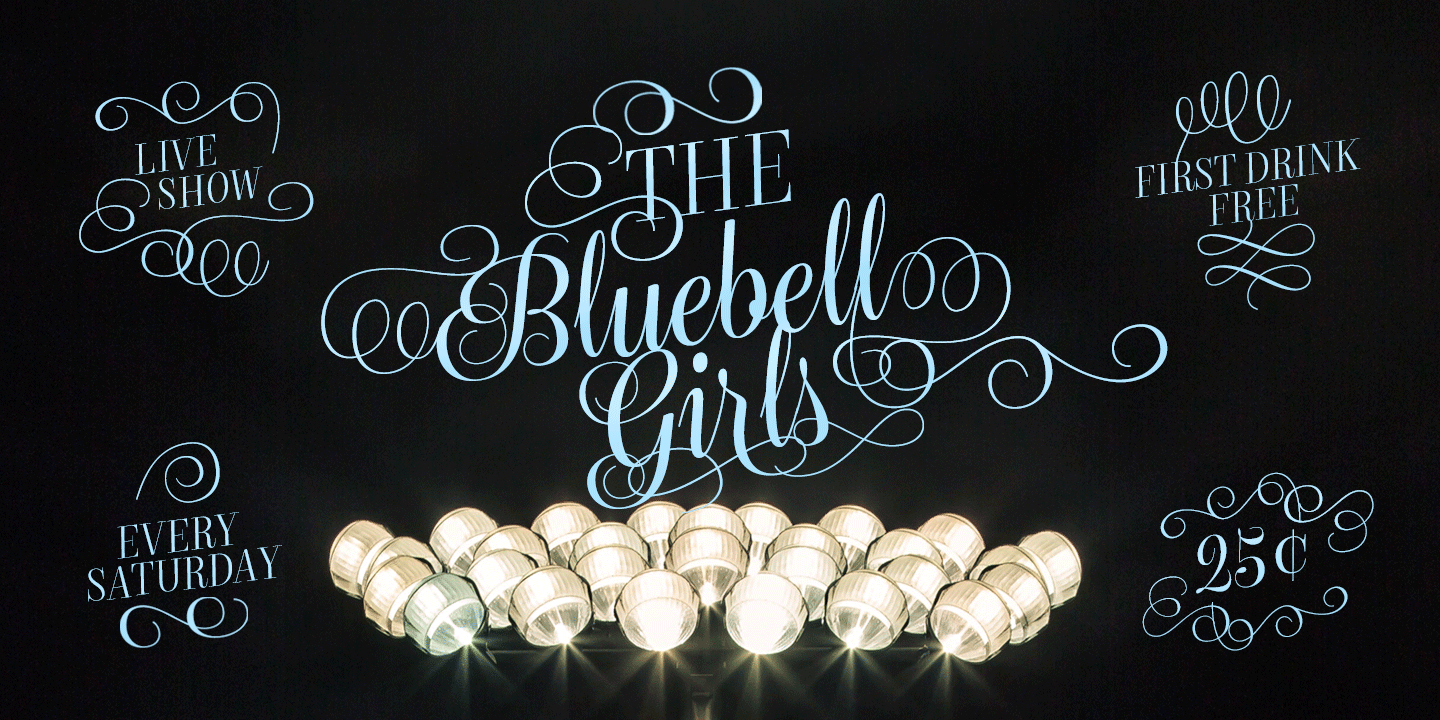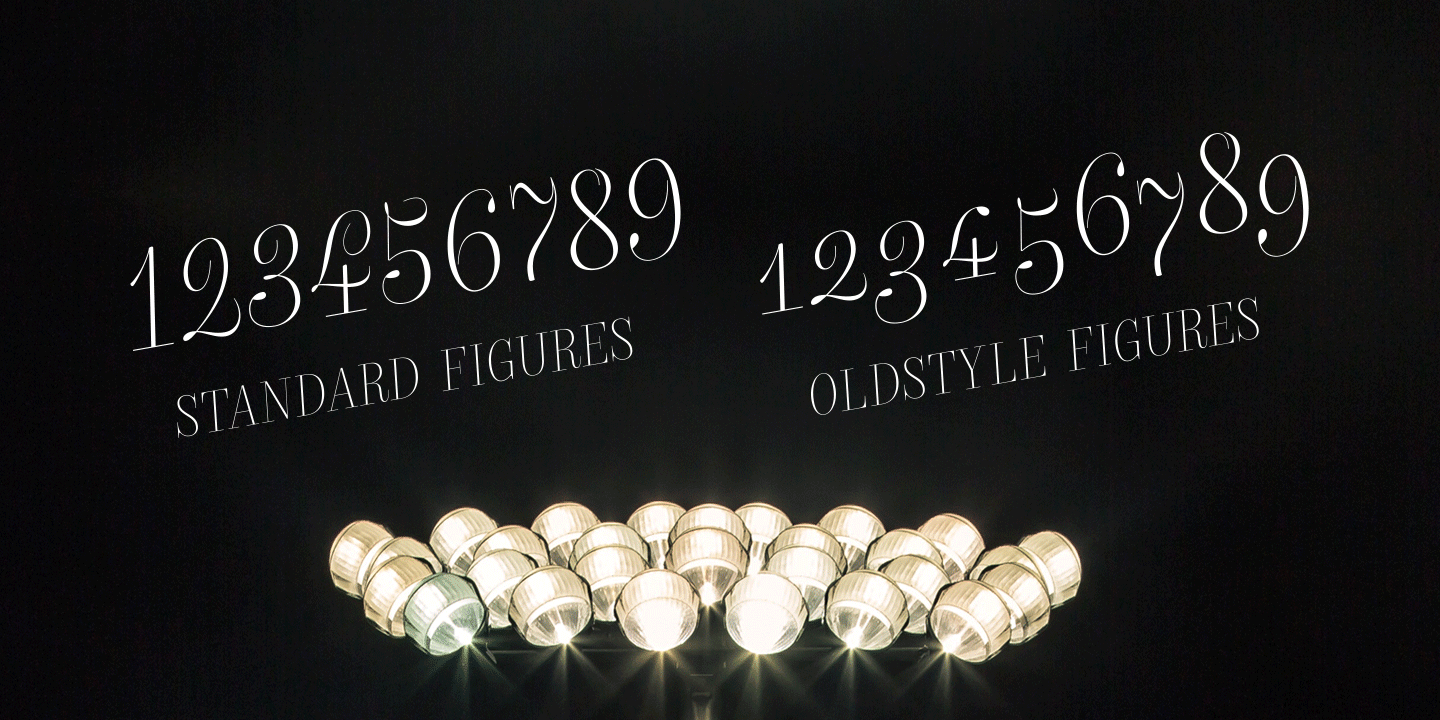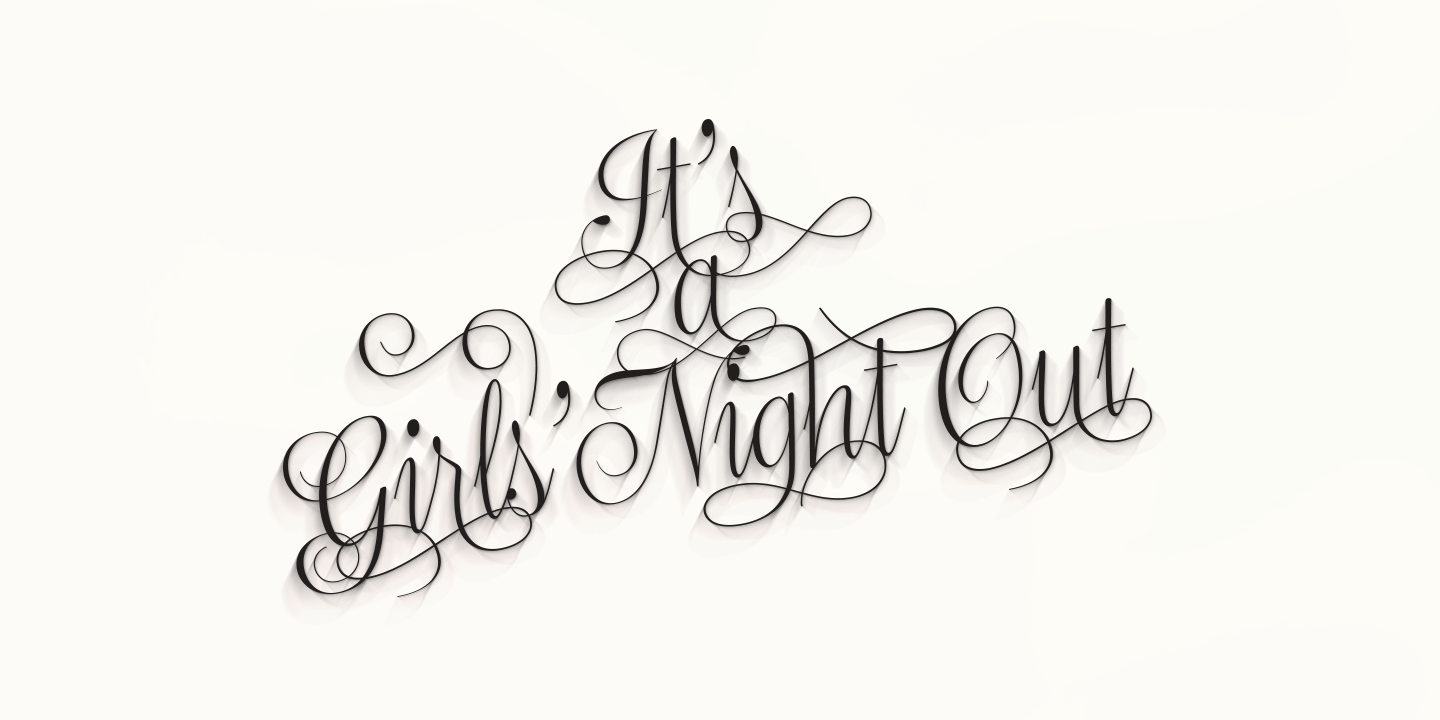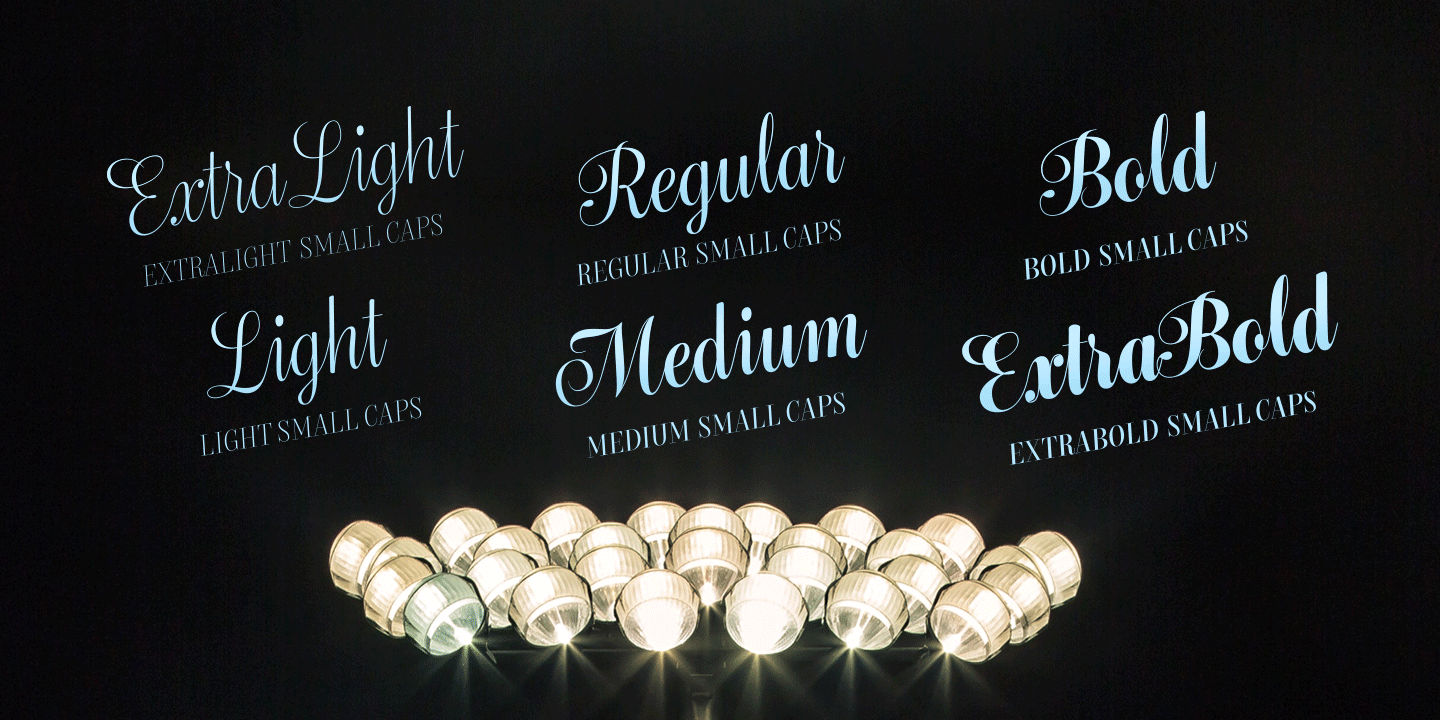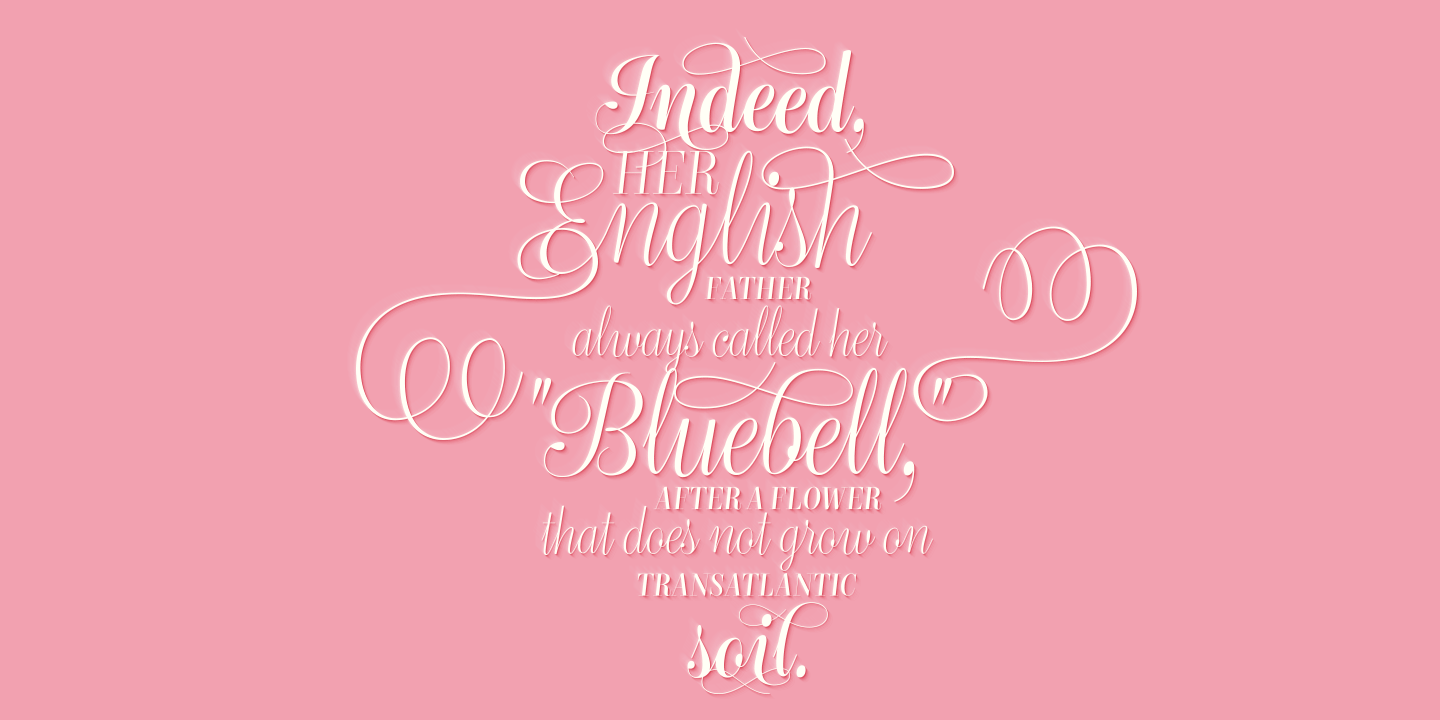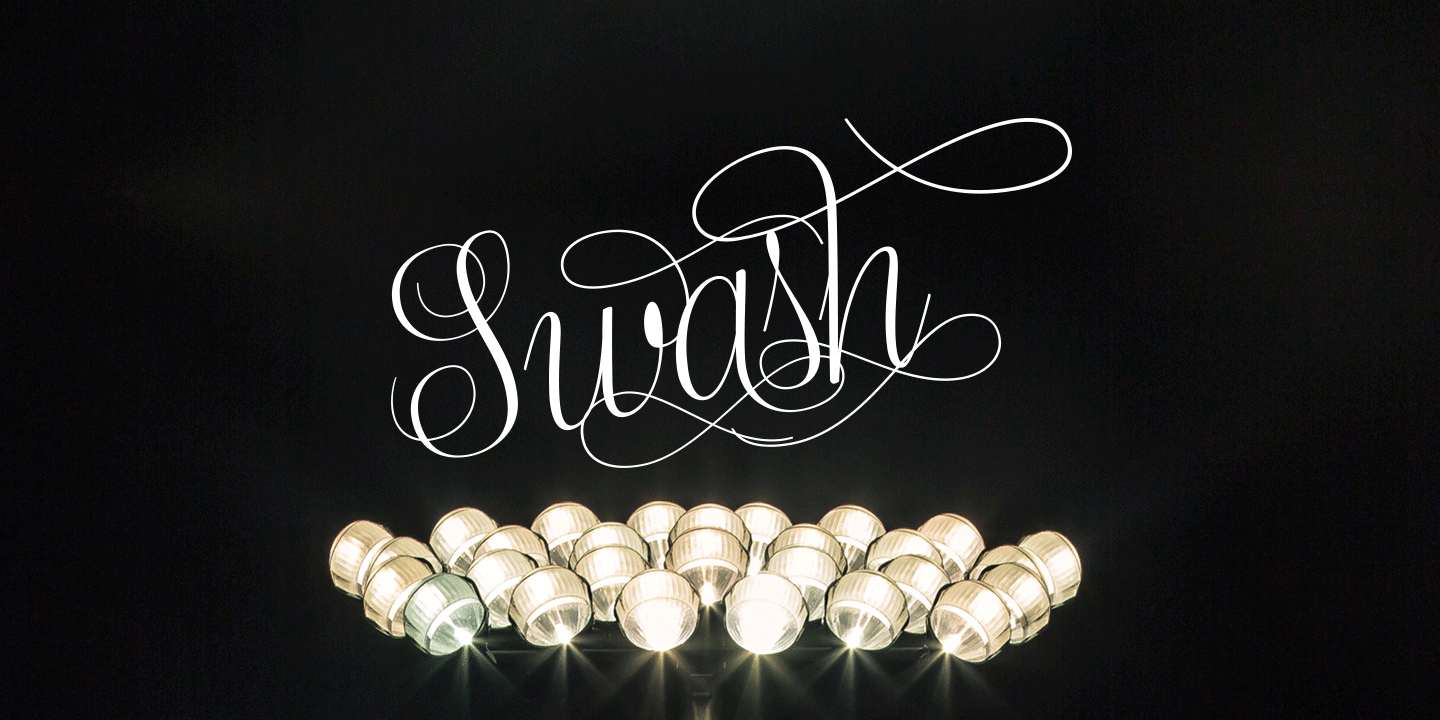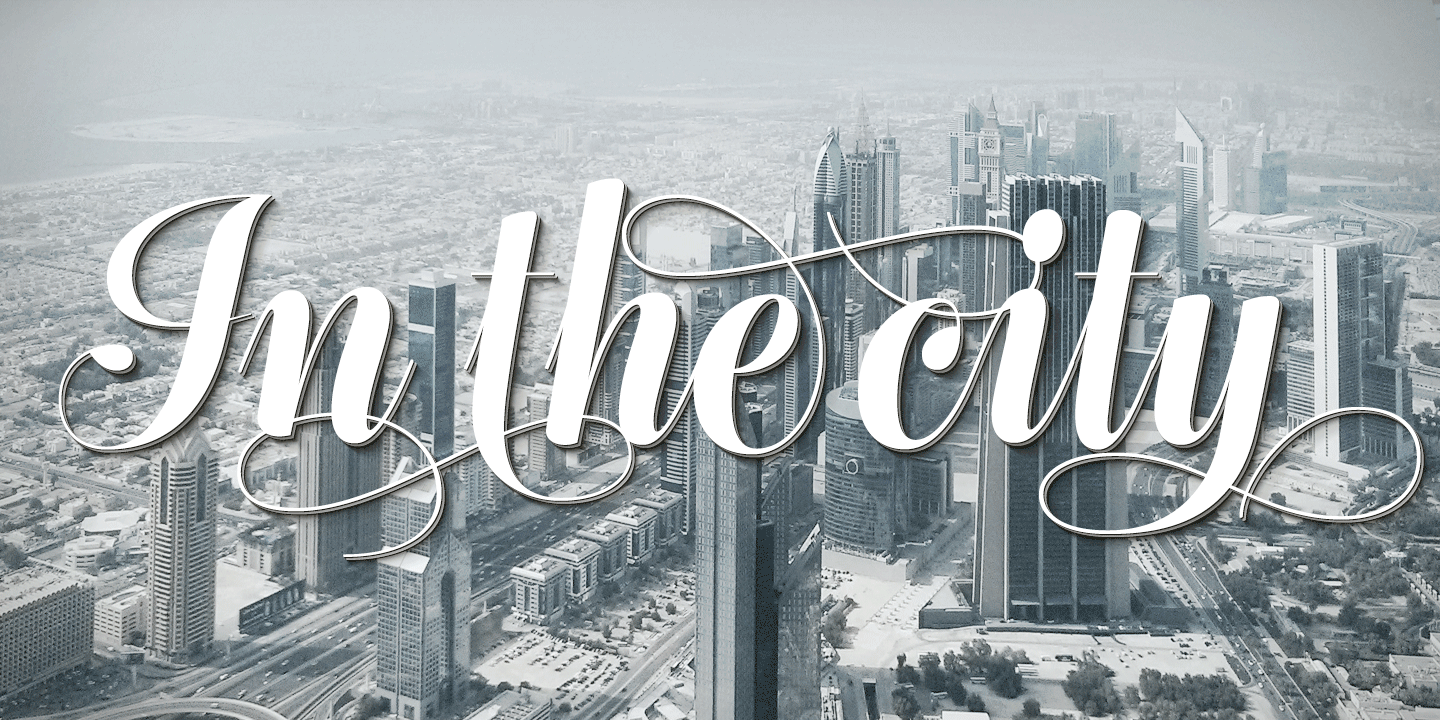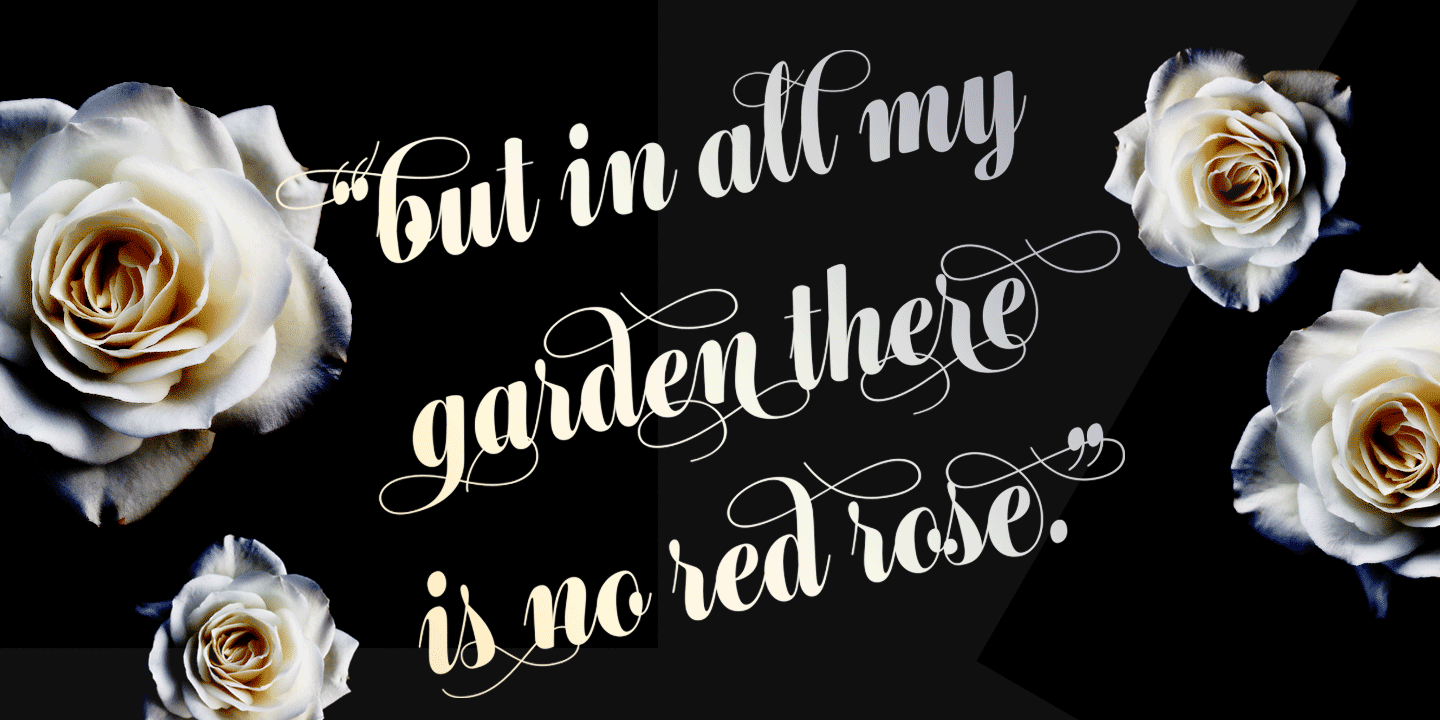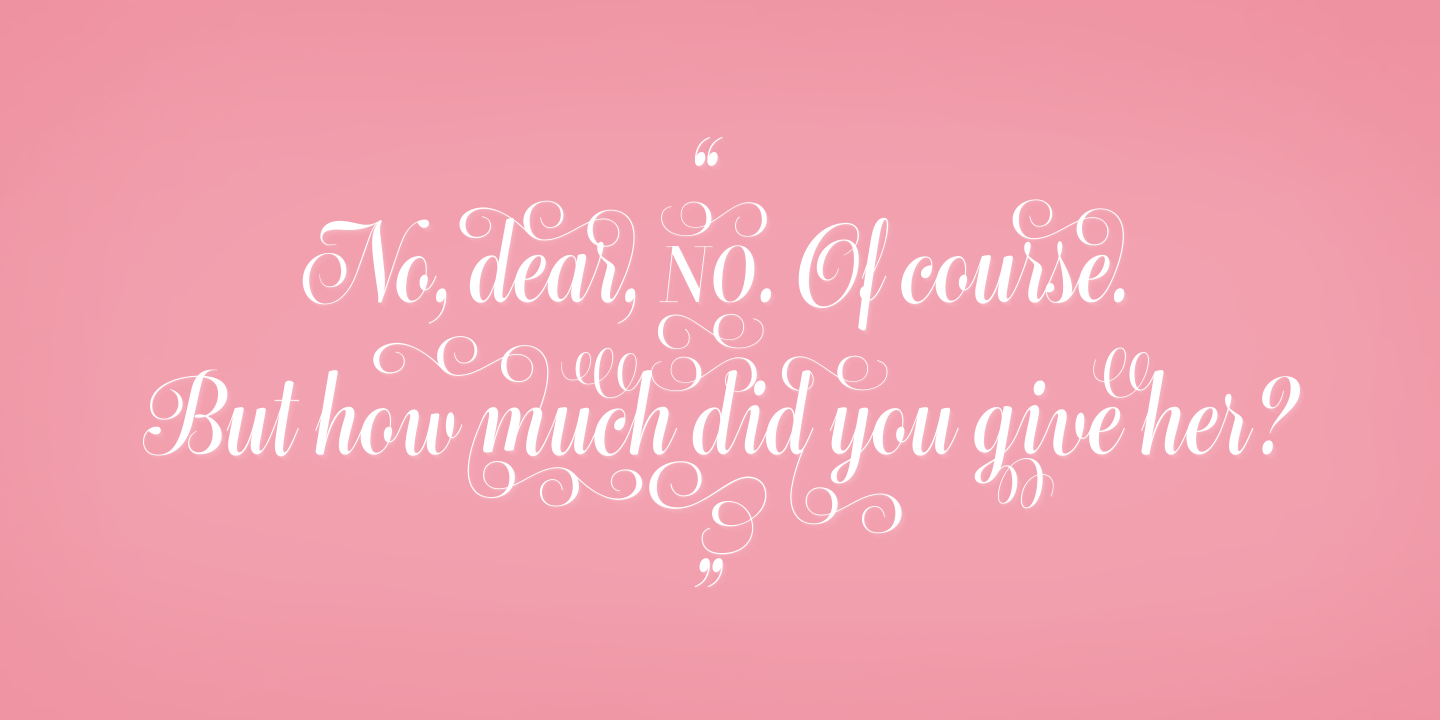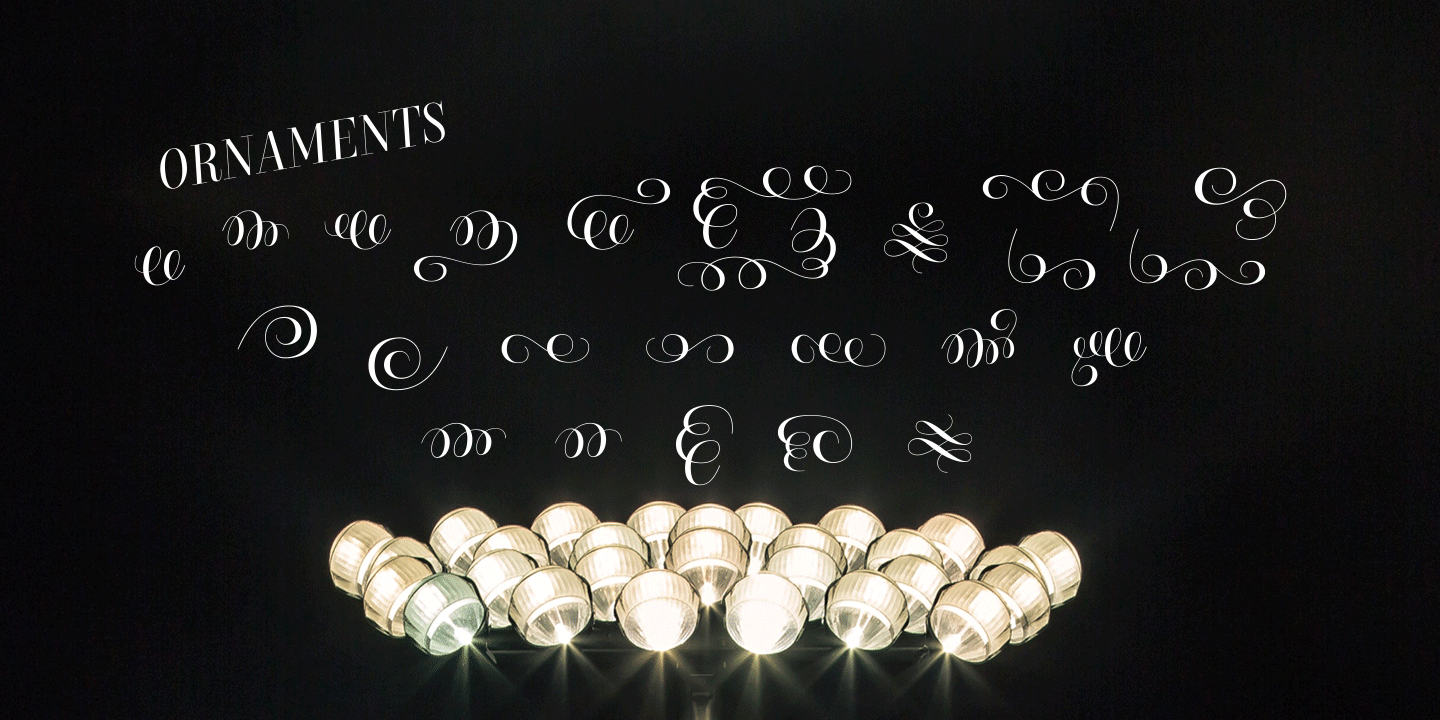
Bluebell
Font Family by Fenotype
Bluebell is a modern script type family in the style of copperplate calligraphy. It comes with six weights from extra light to extra bold, all of them maintaining the distinct high contrast.
Rich with Open Type features, Bluebell includes Swash & Stylistic alternates, automatic ligatures, old style figures and small caps that work as stand-alone font as well.
Each font also comes with a set of ornaments that are found in the glyph palette. Bluebell makes for an elegant, iconic display letter for packaging, books, posters and the like.